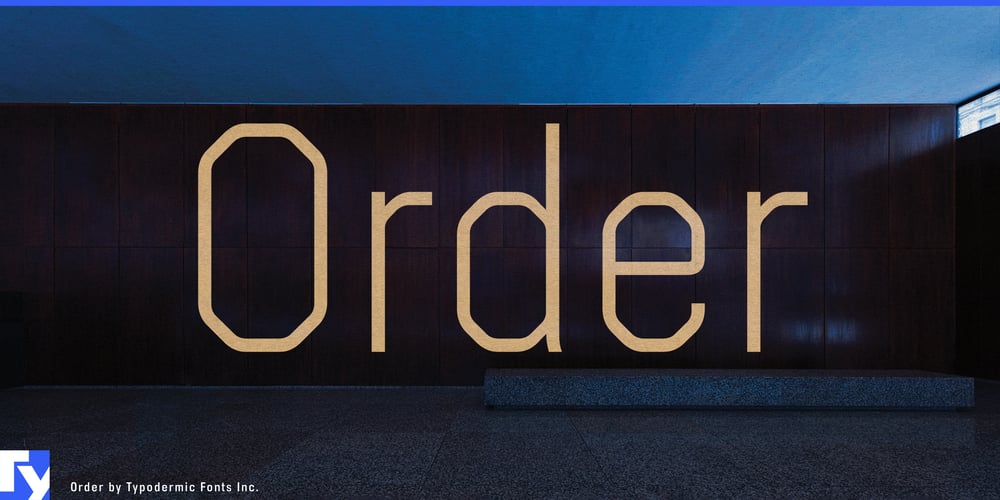
Order Font Family was designed by Ray Larabie and published by Typodermic. Order contains 6 styles and family package options. In the realm of typography, Order stands as a testament to the power of logical design in headlines and titles. This condensed, technical plotter-style display typeface, with its Univers-inspired proportions, is the embodiment of typographic efficiency and visual impact at larger sizes.Order’s octagonal design and uniform strokes create a commanding presence that demands attention. Its angular shapes project an aura of cold reason, making it the ideal choice for headlines in technical publications, titles in data-driven reports, and large-format displays where clarity and precision are paramount. The typeface’s condensed form factor ensures maximum impact even in space-constrained layouts, allowing it to excel in posters, banners, and digital billboards where every character counts. With three weights and corresponding italics, Order offers a systematic approach to creating hierarchies in your headings. This carefully calibrated range provides the flexibility to craft structured, coherent designs across various display applications. From sleek website headers to imposing chapter titles in technical manuals, Order maintains its composure, delivering information with unwavering consistency and authority.Order’s contemporary technological aesthetic allows it to integrate seamlessly into modern visual landscapes while standing out. Its clean lines and rational construction make it equally impactful in branding projects that demand sophistication and in scientific presentations that require utmost clarity in their titles and section headers. The linguistic versatility of Order mirrors its design flexibility. It supports a vast array of Latin-based European writing systems, from Afrikaans to Zulu. This extensive language coverage ensures that your headlines and titles maintain their logical structure across linguistic borders, making Order an invaluable asset for international campaigns and multilingual signage.In a world where first impressions matter, Order brings structure and impact to your most prominent text elements. It’s not just a typeface; it’s a system for organizing thought in your headlines, titles, and display text.